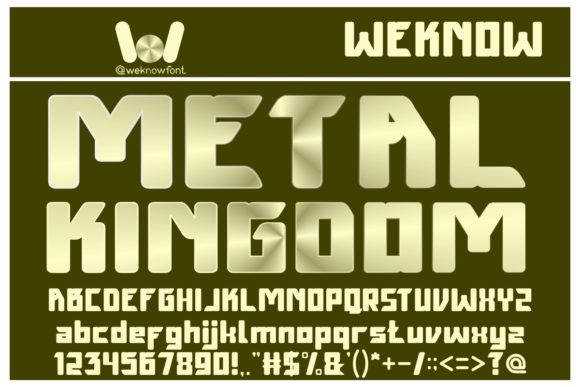
Behold the Metal Kingdom Font, an audacious and enigmatic display font poised to ignite your creative soul. Enter a realm where gothic elegance meets unwavering boldness, Metal Kingdom Font beckons you to unleash your imagination.
Designed to captivate and allure, this majestic typeface is a symphony of sharp edges and captivating curves. Its presence commands attention, making it the perfect choice for logos that demand impact and brand identities that radiate power. The apparel industry finds a formidable ally in Metal Kingdom Font, as its unique personality adds an edgy touch to T-shirts, hoodies, and merchandise.
Unleash your creativity with Metal Kingdom Font and transport your designs to new heights. Craft posters that resonate with boldness and leave a lasting impression. Create music posters that embody the raw energy of rock, or movie posters that exude epic adventure. The possibilities are limitless, as Metal Kingdom Font eagerly awaits your creative vision.
This versatile font family is a haven for gamers, magazine designers, and book authors alike. Its distinct character lends itself seamlessly to game interfaces, adding an element of intrigue and excitement. Magazines and books adorned with Metal Kingdom Font radiate an aura of sophistication and individuality.
In the vast digital landscape, Metal Kingdom Font shines as a beacon of creativity. Website designers find a trusted companion in this font, as it enhances the user experience with its striking visual appeal. Instagram posts and YouTube videos adorned with Metal Kingdom Font captivate audiences, leaving them eager for more.
Embark on a creative odyssey with Metal Kingdom Font as your steadfast companion. Let its bold presence elevate your designs and leave an indelible mark on your audience. Join the ranks of creative visionaries who have harnessed the power of Metal Kingdom Font to forge unforgettable experiences.